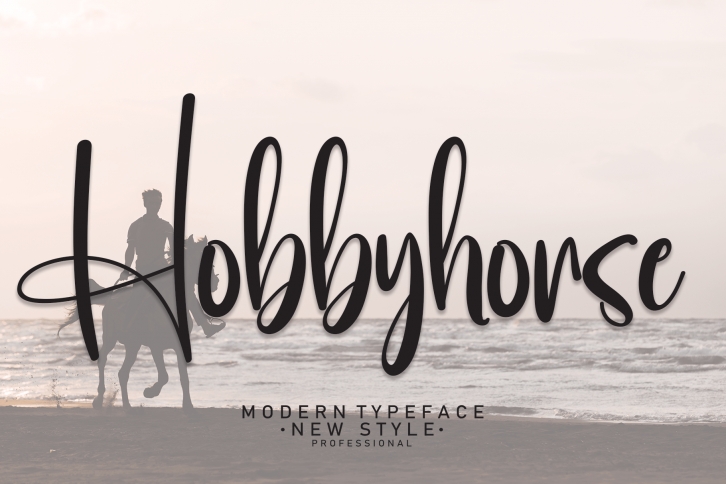
Hobbyorse's latest style letters are perfect for wall displays, wedding invitations, social media post logos, advertisements, product packaging, product designs, labels, photography, watermarks, invitations, stationery, and any project that requires a handwritten taste.